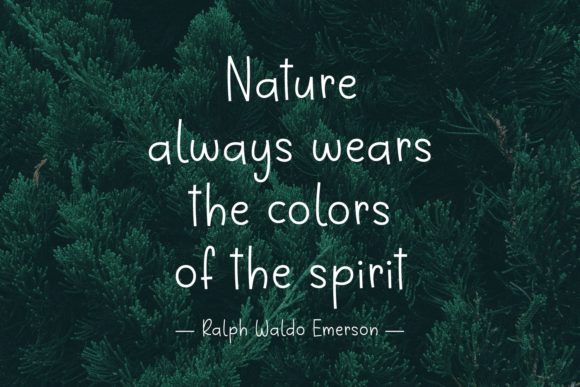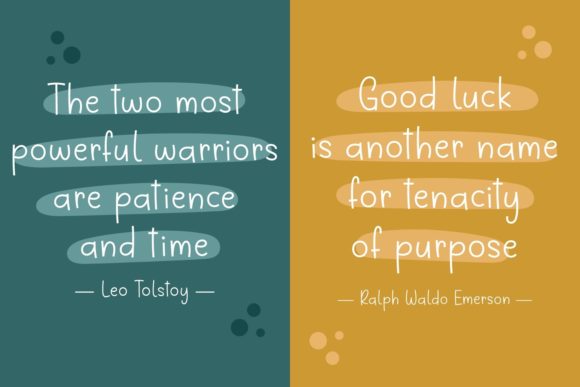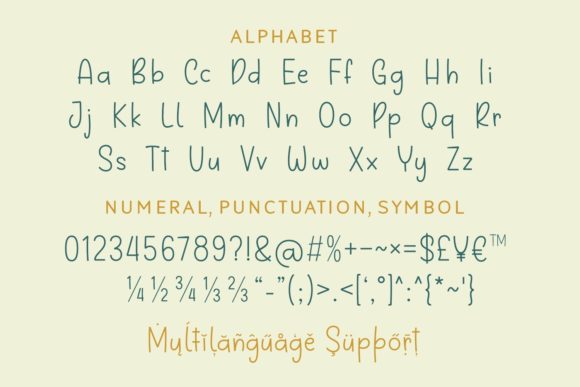
Remember the thrill of brainstorming for your next creative project? The blank page staring back at you, begging for inspiration? For many designers, it’s this exact moment that sparks the excitement and energy needed to bring a vision to life. And what better way to fuel that creative fire than with a font that embodies the essence of adventure?
Enter the Adventure in the Forest Font, a charming and versatile typeface that’s sure to transport your designs to a world of wonder. With its thin and simple handwritten glyphs, this font is perfect for adding a touch of whimsy and personality to your next project. Whether you’re crafting a children’s book, designing a logo, or creating a brochure, Adventure in the Forest Font is the perfect companion to help you bring your ideas to life.
Adventure in the Forest Font Key Features
- Font Family: The font comes in a single-family style, offering a cohesive and consistent look across various applications.
- Character Set: Supports a wide range of languages, including Latin, Cyrillic, and Greek scripts, making it suitable for global applications.
- Unique Characteristics: Features a unique blend of hand-drawn and digital elements, giving it a distinctive and adventurous feel that’s perfect for outdoor-themed projects.
Adventure in the Forest Font Review
Overall, I think the Adventure in the Forest Font is an interesting choice for a font, but it has some aspects that work well and others that need improvement.
- The font’s unique blend of hand-drawn and digital elements gives it a distinct look that can be quite charming.
- The bold and italics styles add a nice touch of personality to the font, making it suitable for headings and titles.
- The font’s x-height is relatively consistent, which makes it easier to read, especially in body text.
- The font’s legibility can suffer at smaller font sizes, making it difficult to read in certain contexts.
- The font’s uniqueness can also be a double-edged sword – while it’s attention-grabbing, it may not be suitable for all types of content.
- The font lacks a clear hierarchy of styles, making it harder to create a visually appealing design.
In conclusion, the Adventure in the Forest Font is a decent choice for a font, but it requires careful consideration and planning to get the most out of it.
The Adventure in the Forest Font is ideal for:
- Outdoor and nature-themed designs.
- Adventure and travel-related projects.
- Children’s book illustrations and design.